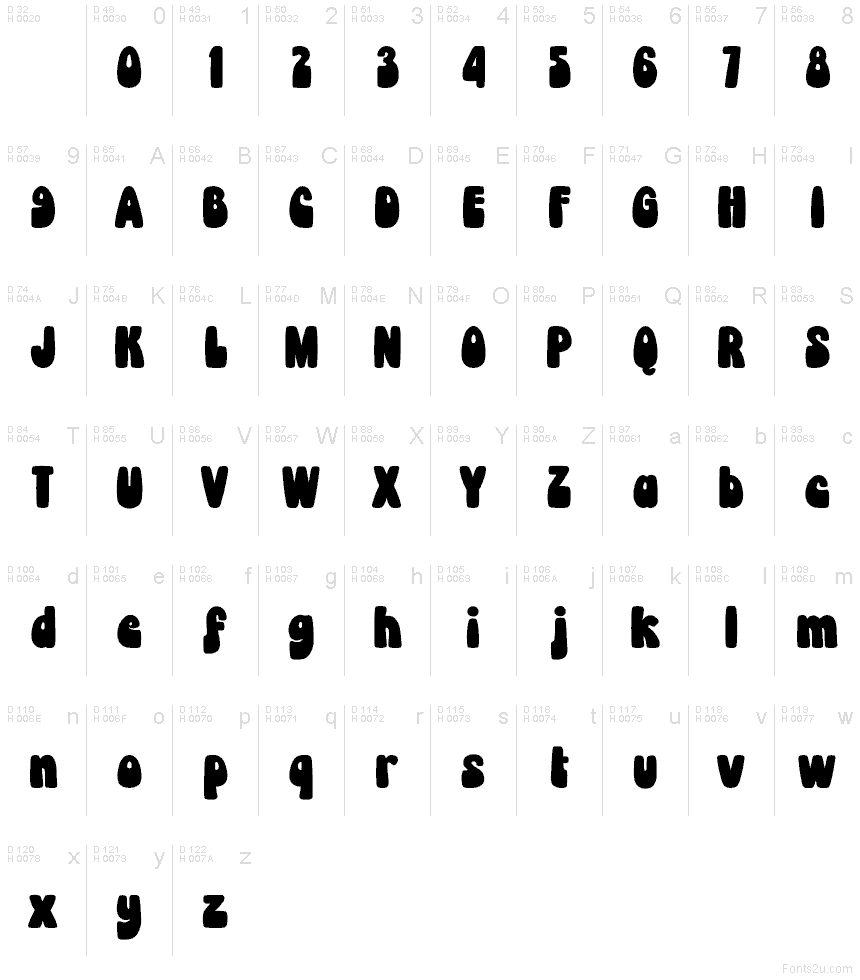
Magical Tours DEMO
Magical Tours font by Ikiiko Type is a free display typeface in a bold weight and condensed appearance. It features rounded letters and whimsical strokes in an overall groovy style. With retro-inspired characters, decorative shapes, friendly presentation, and nostalgic vibes, Magical Tours has the whole package of fonts that stick immediately to viewers’ minds.
Use it in titles for posters, magazines, or books projects. Create greetings cards and invitations or add headlines to branding packaging ideas. Other use cases include website designs (especially headers), logos design creation, album cover artworks, billboards signage mockups etc.